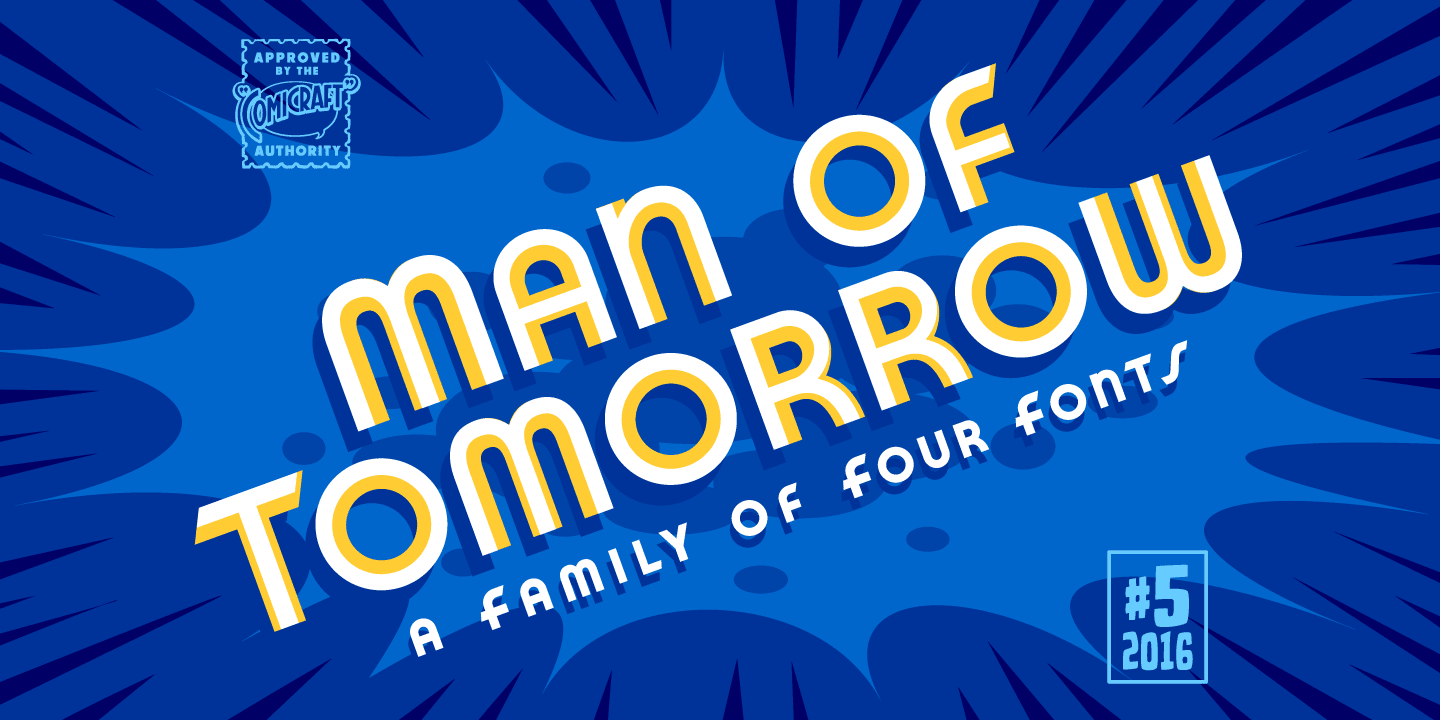
Man Of Tomorrow Font is perfect for superhero comic book titles, futuristic movie branding, sci-fi novel covers, heroic gaming interfaces, space exploration materials, visionary technology presentations, inspirational leadership campaigns, tomorrow-focused corporate branding, innovative startup communications, and hope-driven motivational designs.
What makes Man Of Tomorrow Font so exciting is its extraordinary ability to embody the limitless potential and unwavering optimism of humanity's greatest heroes through boldly crafted letterforms that seem forged from pure inspiration and tempered by an unshakeable belief in a brighter future. This font captures the essence of heroic determination and visionary leadership, featuring powerful characters that appear designed to inspire ordinary people to achieve extraordinary things and reach beyond the stars toward infinite possibility. The commanding letter shapes create an atmosphere of hope and heroic aspiration, making every word feel like a rallying cry that echoes across time to inspire generations of dreamers and defenders of justice.
The Man Of Tomorrow Font family includes Light, Regular, Medium, Bold, and Heavy weights, along with condensed and extended variations for maximum impact. Each style maintains the font's distinctive heroic character while offering versatility for different inspirational applications, from subtle motivational text to thunderous headlines that proclaim humanity's endless capacity for growth, courage, and positive transformation.
This inspiring typeface brings authentic superhero aesthetics to contemporary design projects. The Man Of Tomorrow Font Free Download provides designers with an exceptional tool to create memorable brand identities that communicate hope, strength, and visionary leadership. Whether you're developing heroic entertainment branding, designing inspirational campaign materials, or creating future-focused corporate communications, this font delivers unmatched power and aspirational appeal.
The masterfully engineered letterforms in Man Of Tomorrow Font feature bold geometric structures balanced with flowing elements that ensure optimal readability while expressing the perfect fusion of human compassion and superhuman strength that defines true heroism. Each character has been crafted to maintain crystal clarity while conveying the unwavering moral conviction and boundless optimism that inspire ordinary individuals to become extraordinary leaders. The font's heroic presence makes it ideal for applications requiring genuine inspiration and visionary authority.
Entertainment and corporate professionals appreciate how Man Of Tomorrow Font effortlessly communicates leadership, innovation, and unlimited potential while appealing to audiences seeking authentic inspiration and positive transformation in an increasingly complex world. The comprehensive glyph set includes heroic symbols, futuristic elements, inspirational icons, and extensive international language support, ensuring global compatibility while maintaining its distinctive tomorrow-focused identity. This makes it an invaluable resource for entertainment companies, visionary brands, educational institutions, and any organization seeking typography that embodies humanity's greatest aspiration: the belief that tomorrow can always be better than today, and that each of us has the power to become the hero our world needs most.